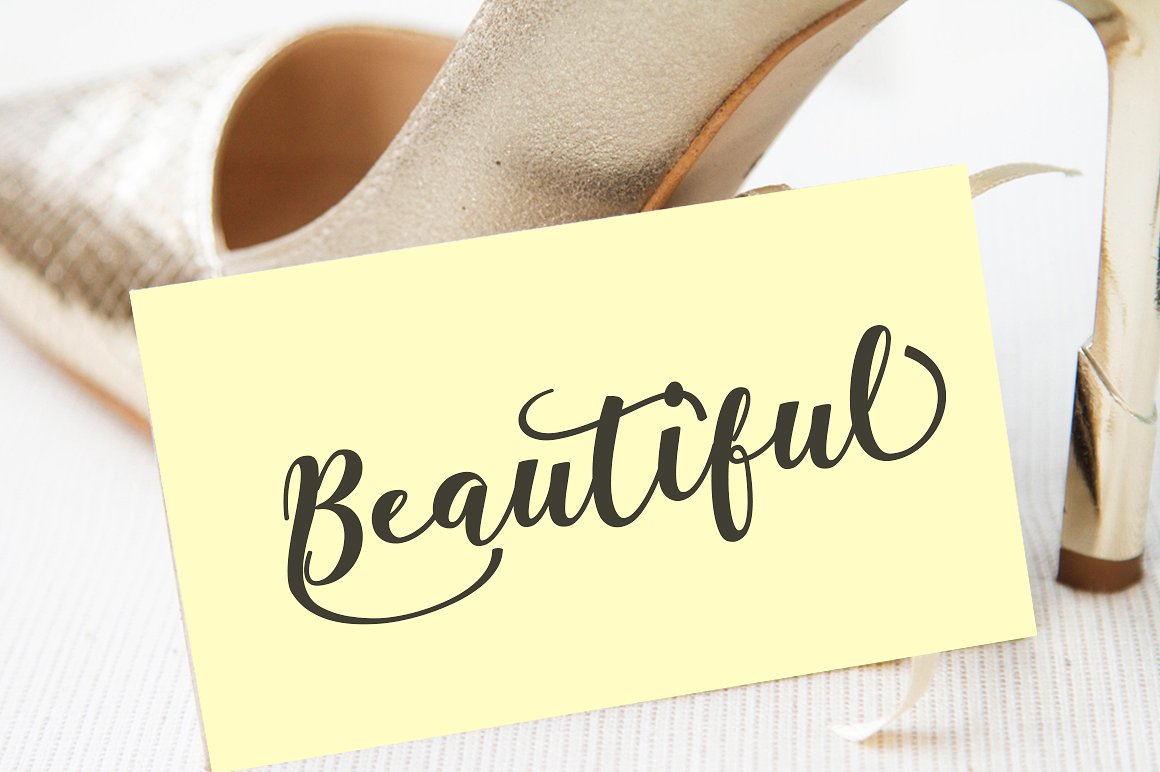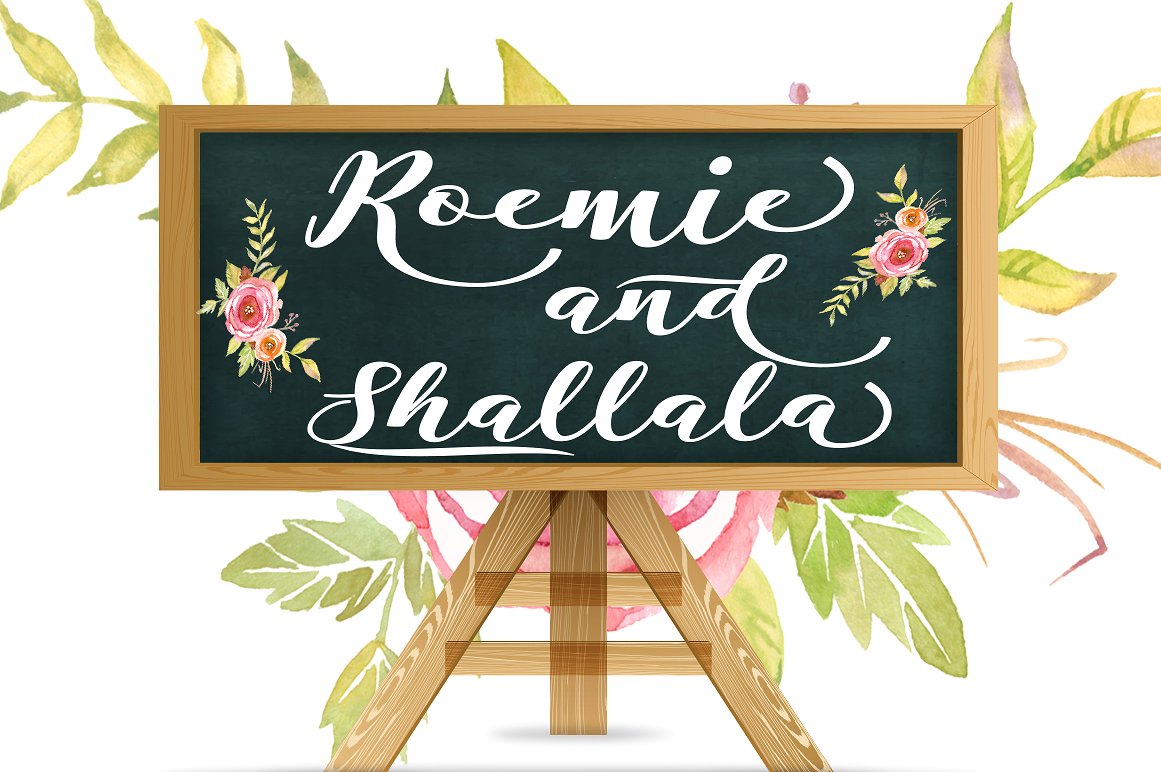
Famous Script Typeface
Famous Script Typeface is a new casual handwritten script with its own unique curves and an elegant inky flow. The letters are created to appear not too overly refined, maintaining some inky imperfections in the edge detail, adding a more realistic hand-inked look.